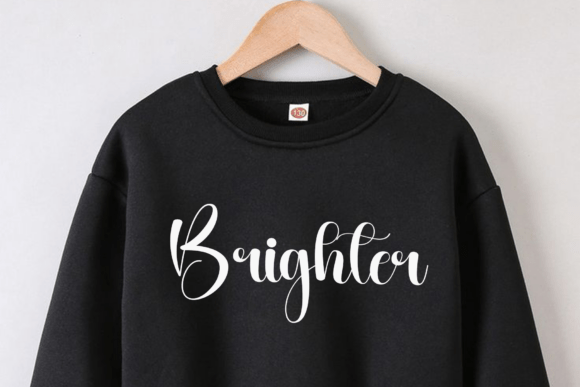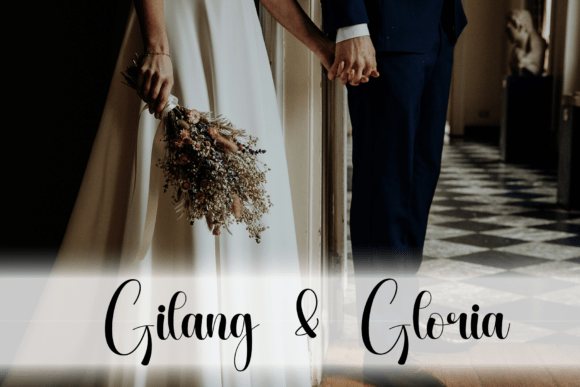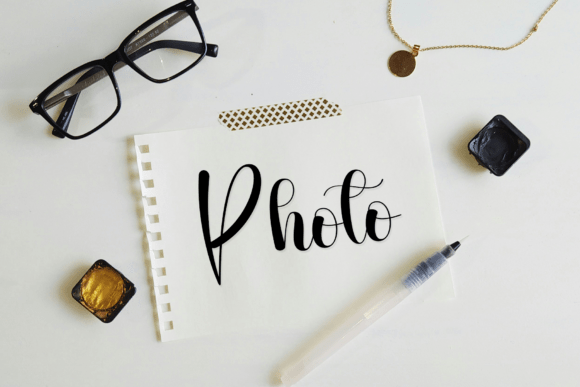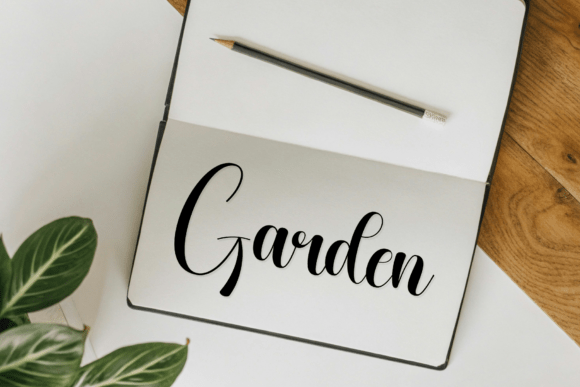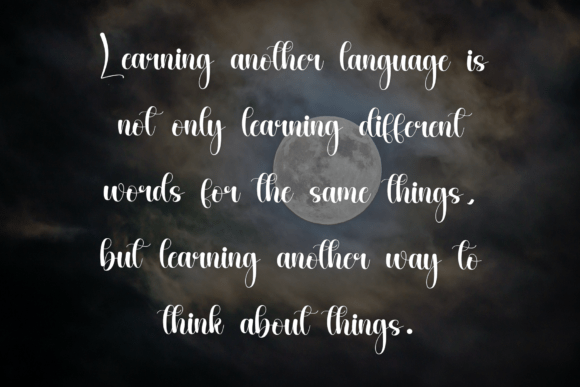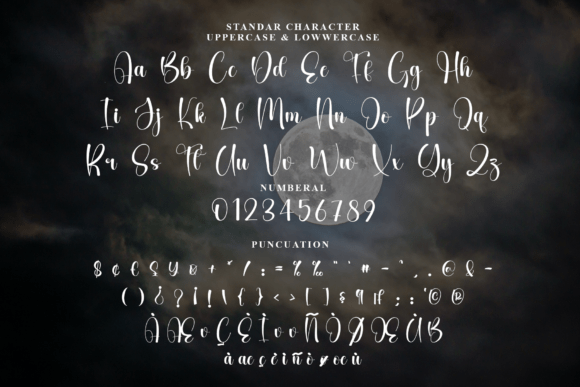
Introduction to Nightfully Font
As designers, we’ve all been there – staring at a blank canvas, trying to bring our vision to life. The blank page can be intimidating, but it’s in these moments that we get to unleash our creativity. And what better way to do that than with a beautiful, high-quality font? Enter Nightfully Font, a sophisticated and fluid script font designed to add a touch of elegance to any creative project.
With its vertically elongated letterforms and smooth character joins, Nightfully Font is the perfect design resource for anyone looking to add a professional and customized touch to their work. Whether you’re working on a boutique brand identity, a personal signature watermark, or a lifestyle marketing campaign, this font is sure to impress. And the best part? It’s available for free download, making it a valuable addition to any designer’s toolkit.
Key Features of Nightfully Font
- High-quality font designed for creative projects with a unique, elegant aesthetic.
- Transparent background allows for seamless integration with custom backgrounds or images.
- Includes a range of font sizes and resolutions, from 72 dpi to 300 dpi, to accommodate various design needs.
- Perfect design resource for designers, artists, and creatives working on projects requiring a sophisticated, nighttime-inspired look.
- Unique characteristics include subtle gradient effects and intricate details, making it ideal for use in invitations, posters, and other promotional materials.
Honest Review: Nightfully Font
I recently stumbled upon the Nightfully Font, and I’m excited to share my thoughts on this free design resource. As a designer, I’m always on the lookout for high-quality fonts that can elevate my creative projects.
- ✨ The Nightfully Font has a beautiful, elegant design that works perfectly for projects requiring a touch of sophistication.
- ✨ The transparent background makes it easy to integrate with various design elements, allowing for a seamless design experience.
Despite this limitation, I was impressed with the Nightfully Font’s overall quality and versatility. It’s an excellent addition to any designer’s toolkit, and I would recommend it for any creative project requiring a touch of elegance.
Tips for Getting the Most Out of Nightfully Font
To get the most out of the Nightfully Font, use it in combination with other design elements to create a unique and eye-catching design. Experiment with different font sizes and styles to find the perfect look for your project. The transparent background of this font makes it perfect for overlaying on images or other design elements.
The Nightfully Font is a versatile design resource that can be used in a variety of creative projects, including posters, flyers, business cards, and more. Its high-quality design and transparent background make it perfect for creating professional and eye-catching designs.